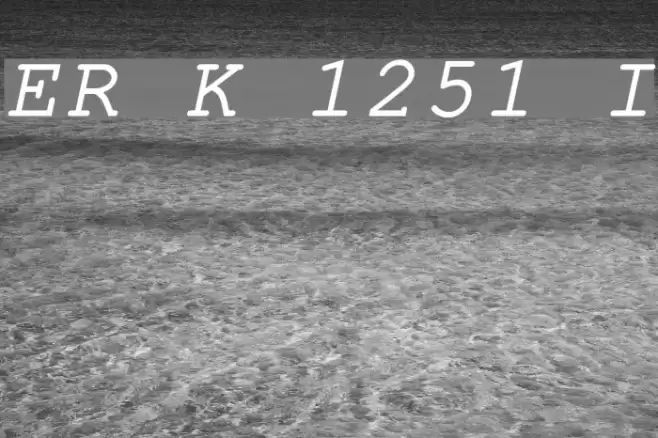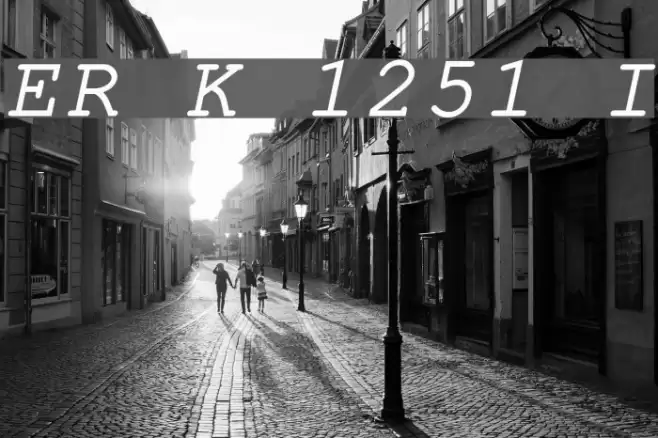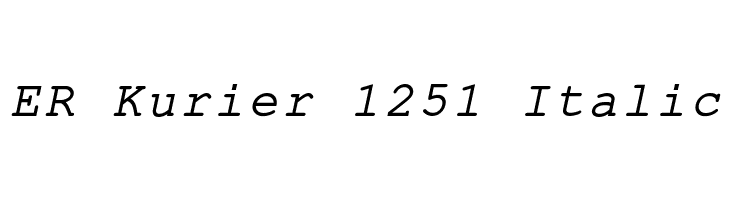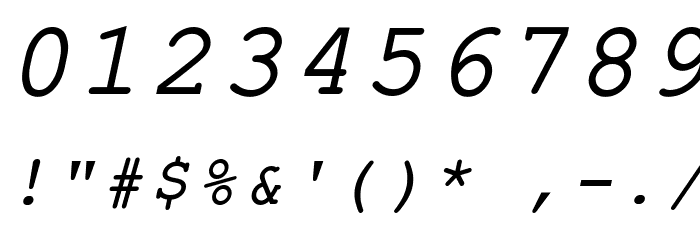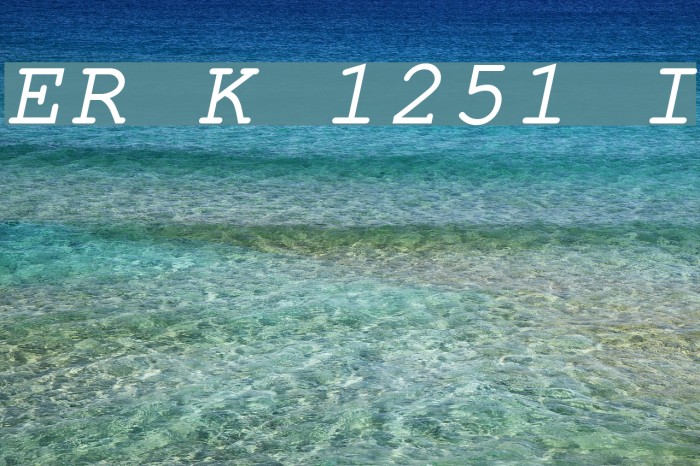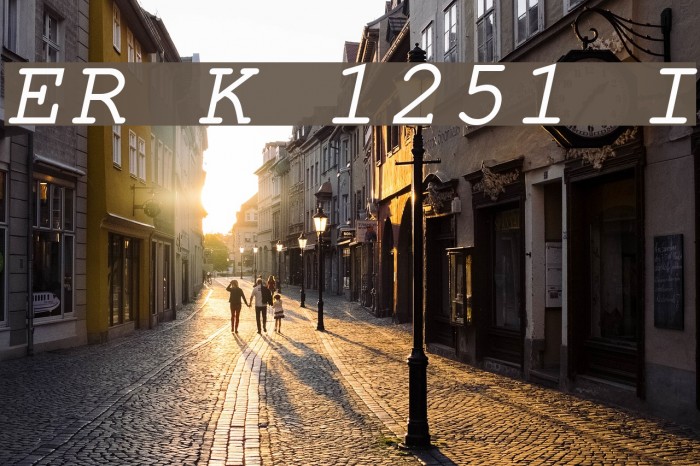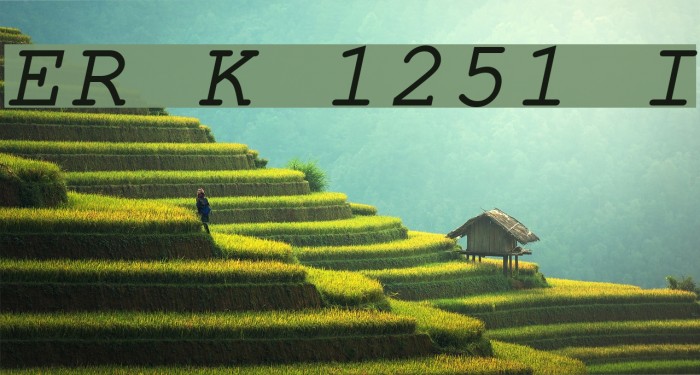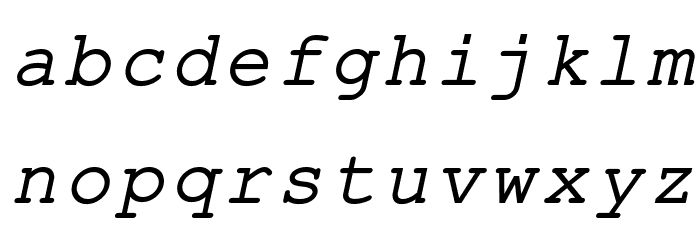
ER Kurier 1251 Italic Font
ER Kurier 1251 Italic Description
This font features a classic italic style with a slight slant, giving it a dynamic and elegant appearance. The characters are well-defined with a moderate stroke contrast, making it suitable for both digital and print media. The uppercase letters maintain a consistent height, while the lowercase letters have a slightly more pronounced slant, adding to the overall fluidity of the design. The numerals are clear and distinct, ensuring readability. Special characters are included, providing versatility for various applications. The font's design is both timeless and functional, making it a great choice for a wide range of projects.
A classic italic font with moderate contrast and elegant slant from Typewriter fonts.
- Overall Style: Classic